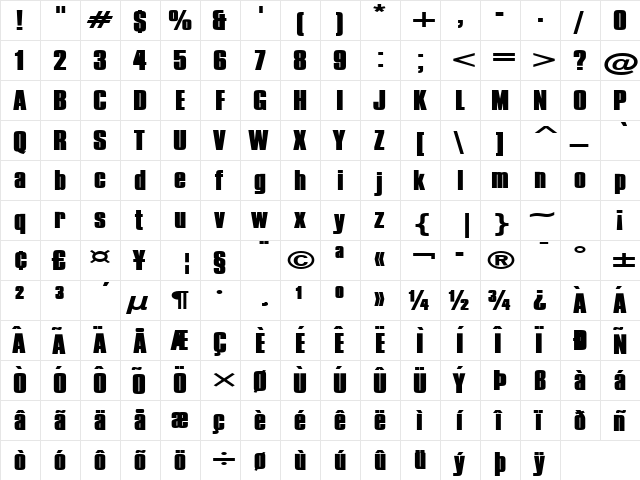
Commador Extended Heavy Normal
Design Context for Commador Extended Heavy Typeface
Commador Extended Heavy is a composed and adaptable typeface that performs quietly and consistently across a wide range of design contexts.